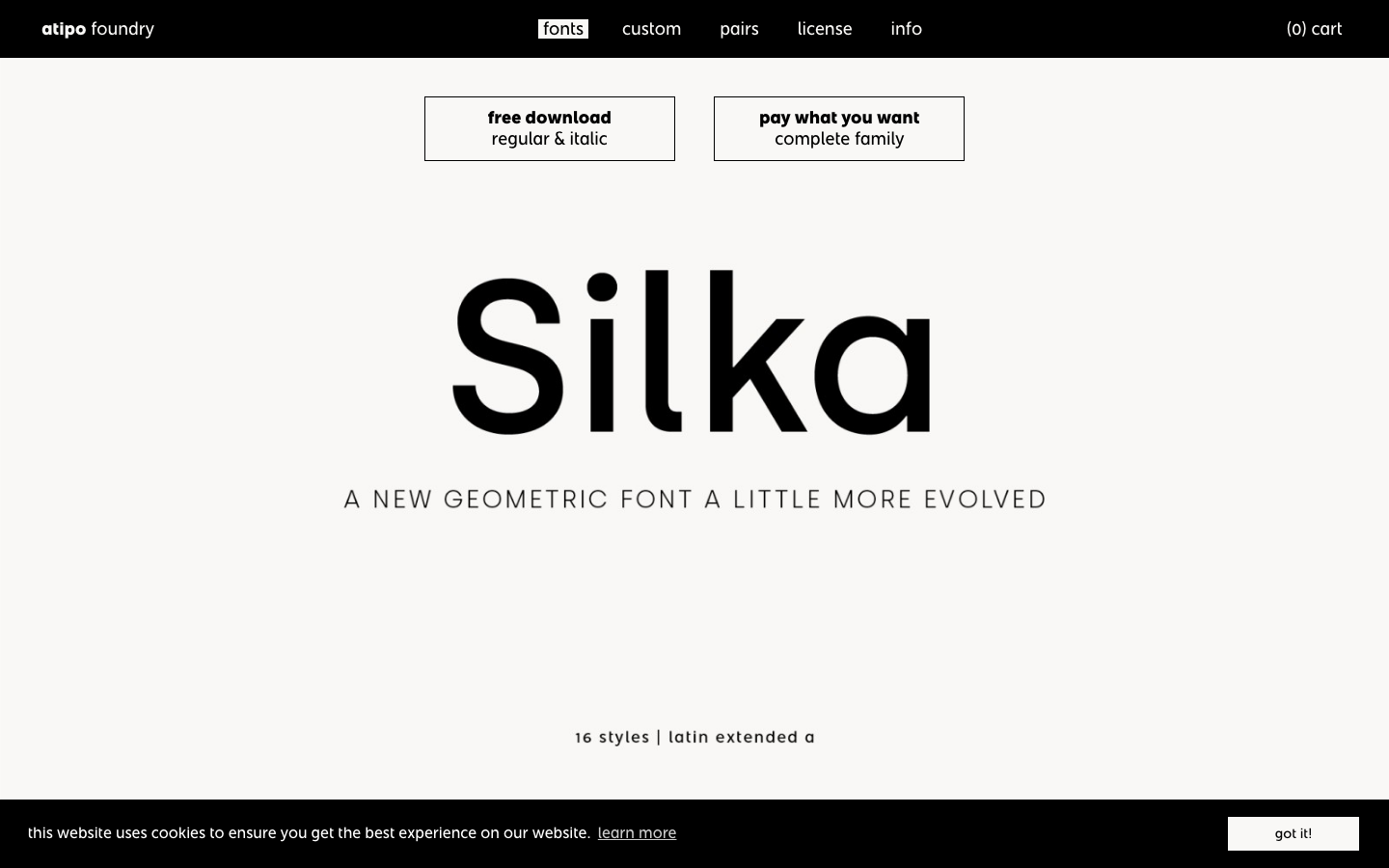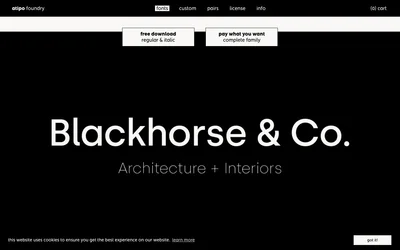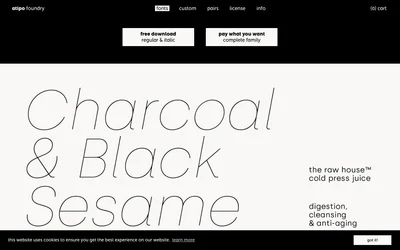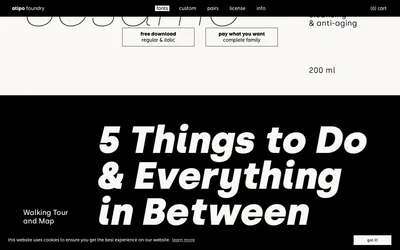
Averta vs Silka
Averta and Silka are both sans-serif typefaces sharing a geometric foundation. Where Averta leans warm, Silka brings minimal. Compare which suits your Branding project.
Averta
Geometric
ModernWarm
Silka
Geometric
ModernMinimal
- warm design character
- Suited for Corporate
- minimal design character
- Suited for Editorial